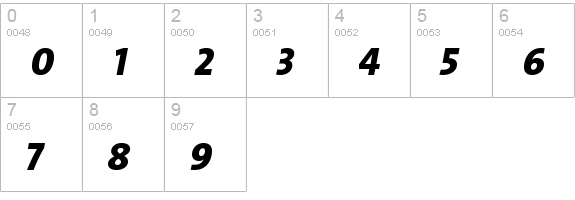
TheMix ExtraBold Caps Italic Font Details
TheMix ExtraBold Caps Italic is an extra-heavy, attention-grabbing, italic variant in the TheMix typeface family \xE2\x80\x94 well suited to high-impact headlines, posters, and bold branding.
TheMix ExtraBold Caps Italic font is a bold and eye-catching typeface that exudes confidence and modernity. Its unique combination of thick strokes and slanted italics creates a sense of dynamism and adds a touch of sophistication to any design. This font is perfect for headlines, titles, and other attention-grabbing elements. Its strong and assertive appearance makes it ideal for projects that require a powerful visual impact. Whether you're designing a poster, a logo, or a website, TheMix ExtraBold Caps Italic font will make sure your message stands out from the crowd. One of the best things about TheMix ExtraBold Caps Italic font is that it is freely available to download at FontsMarket.com. This means that you can enjoy its striking aesthetics and professional quality without having to spend a dime. With just a few clicks, you can enhance your design projects with this amazing font and take them to the next level. TheMix ExtraBold Caps Italic font is not only visually appealing but also highly versatile. It can be easily paired with other typefaces to create interesting and harmonious combinations. Its clean and legible letterforms ensure readability even at smaller sizes, making it suitable for both print and digital media. Whether you're a professional designer or a casual enthusiast, TheMix ExtraBold Caps Italic font is a valuable addition to your font collection. Its bold and expressive nature will make your designs shine and leave a lasting impression on your audience. So why wait? Head over to FontsMarket.com and download TheMix ExtraBold Caps Italic font for free today!